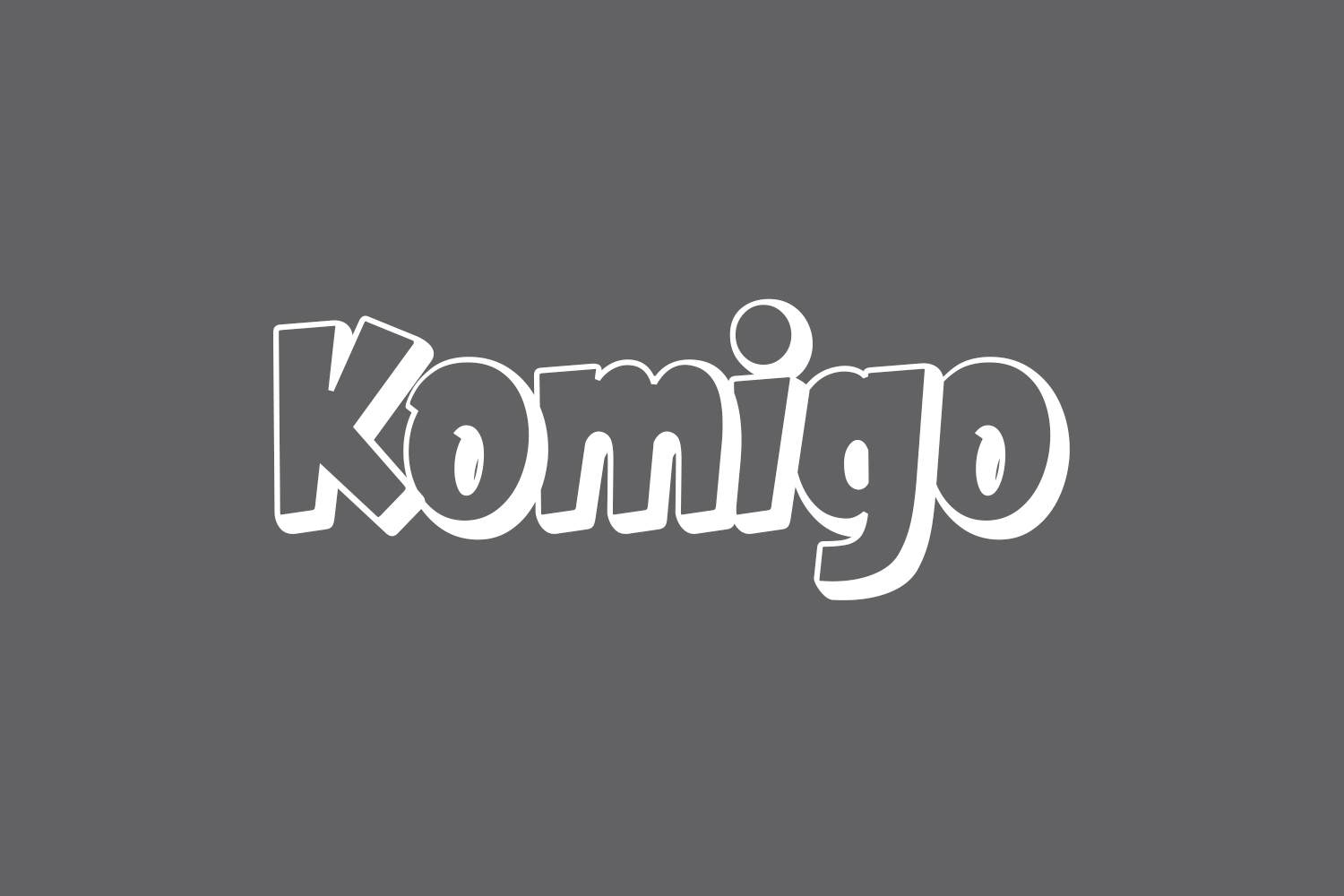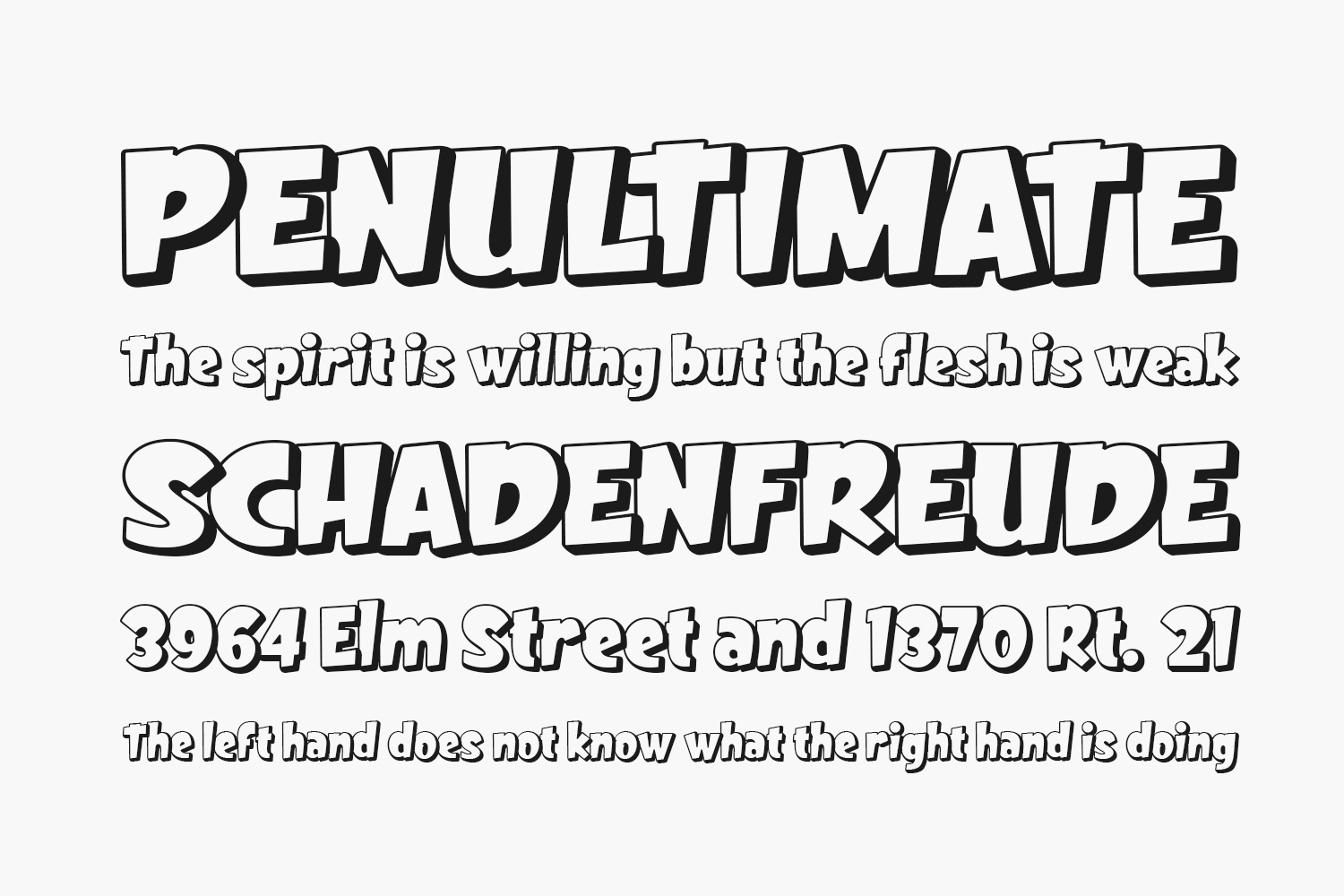
Komigo Free Font is an energetic, trendy, and striking layered display font. Let its distinctive comic-style charm inspire you, transforming any design project into a true standout! Unleash the fun and boldness of Komigo for a truly unique creative expression. Download the font for free if you need it for personal use or purchase the full version for commercial use.
Designed by Alit Design